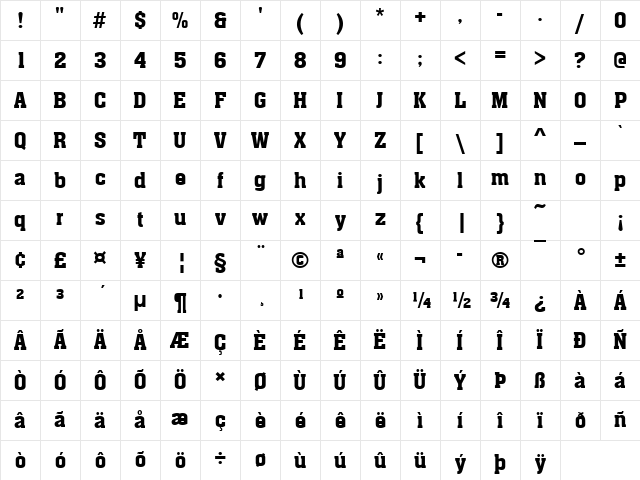
MGI Archon DemiBold Free Font
MGI Archon DemiBold
Style: DemiBold
Complete MGI Archon DemiBold glyph index. Displaying only characters natively supported by MGI Archon DemiBold font.
Design Context for MGI Archon
MGI Archon is a composed and adaptable typeface that performs quietly and consistently across a wide range of design contexts. Its bold stroke weight gives it real presence on the page.